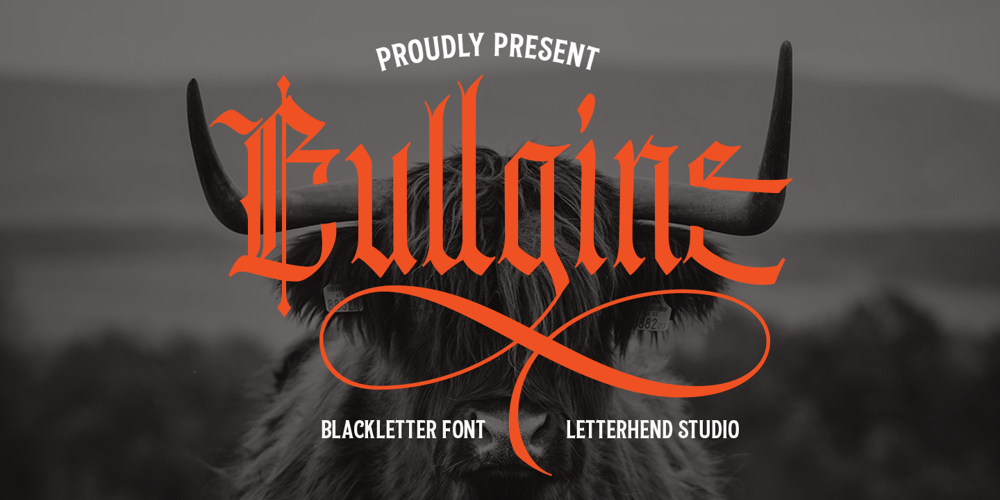
Bullgine Font Family was designed by Hendry Juanda and published by Letterhend. Bullgine contains 1 styles and family package options. Introducing, Bullgine – A modern gothic blackletter typeface. This type of font perfectly made to be applied especially in logo, and the other various formal forms such as Logo, Clothing, Fashion, Headline, or any type of advertising purpose.Features : uppercase & lowercase numbers and punctuation stylistic alternate multilingual PUA encoded We highly recommend using a program that supports OpenType features and Glyphs panels like many of Adobe apps and Corel Draw, so you can see and access all Glyph variations. How to access opentype feature : letterhend.com/tutorials/using-opentype-feature-in-any-software/Email us to letterhend@gmail.com if you need something! Happy Designing!